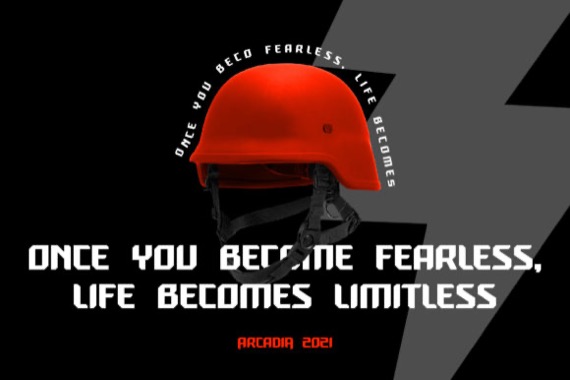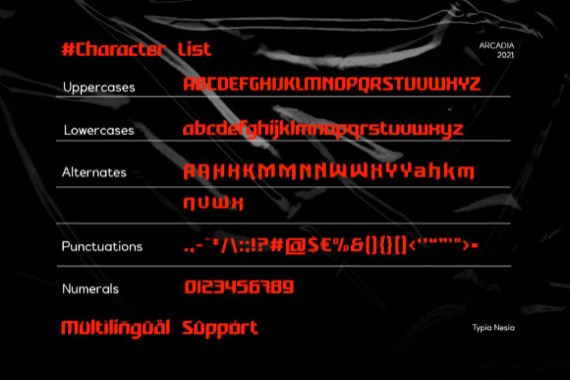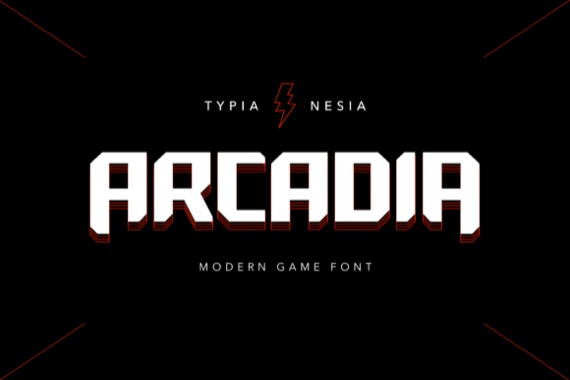
Arcadia is a bold and classic display font that was created and published by Typia Nesia. This font is ideal for writing web designs, business cards, or pretty much anything else that requires a unique touch.
Arcadia Display Font
Designer, Publisher: Typia Nesia